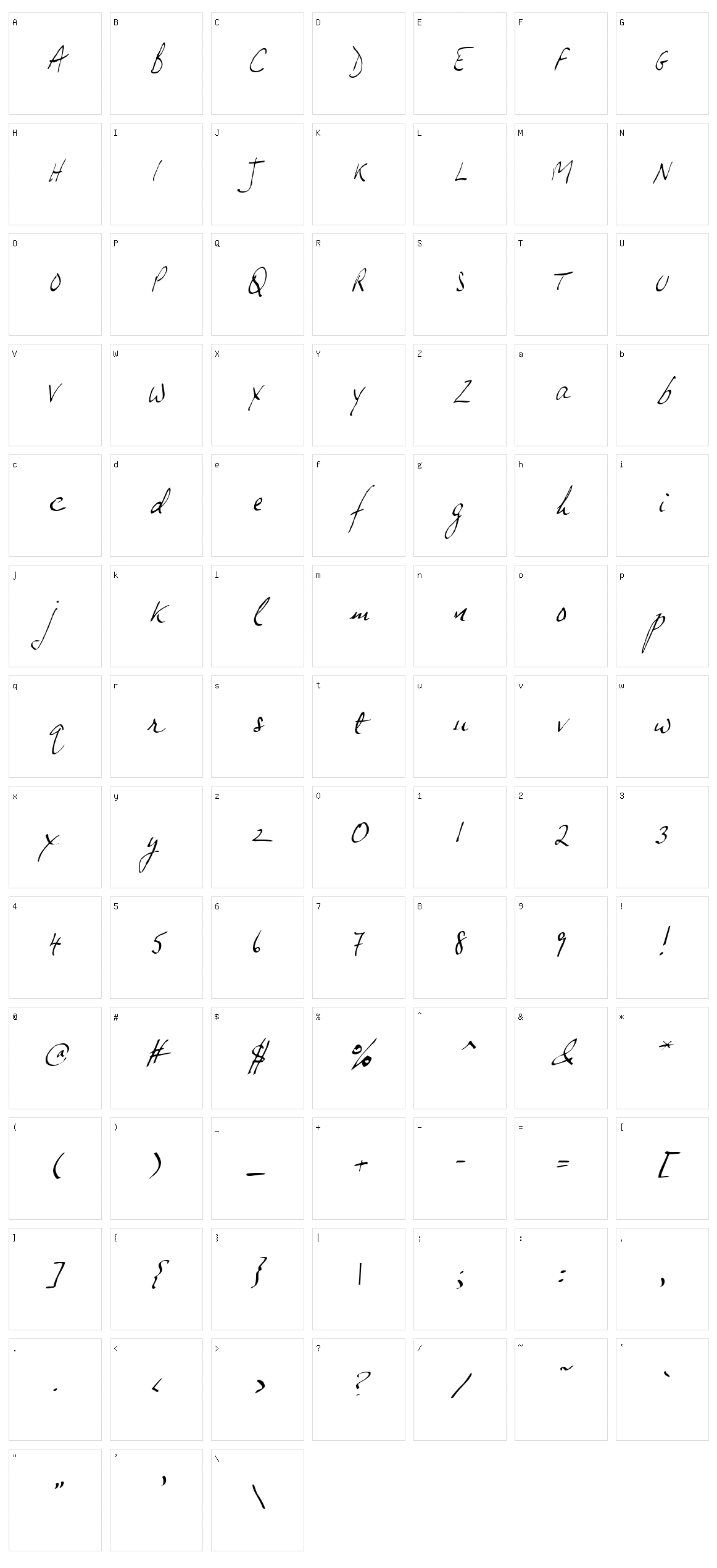
The free font JP Hand Slanted is carefully designed by Jonathan Paterson, showcasing a thoughtful balance of creativity and usability and falls under the Script font style. When you download the ZIP file, it contains only 47.19 KB of font files, making it lightweight and quick to download. Please review the license details below to understand permitted usage and distribution rights. If license information is not available, we recommend using this font for personal projects only or contacting the author directly for commercial usage permissions.